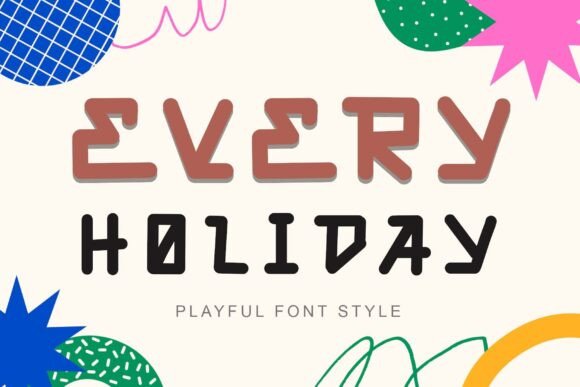
Every Holiday Font: Elevate Your Designs with Elegance and Versatility
In the world of digital design, fonts play a crucial role in conveying the message and aesthetic of a project. Whether you’re creating a festive Easter card, a summer sale banner, or a logo for a vacation brand, the right font can make all the difference. This is where “Every Holiday” comes into play – a unique and elegant display font designed to add a touch of sophistication to your designs. In this article, we’ll delve into the features and benefits of “Every Holiday” and explore how it can elevate your designs for various holidays and occasions.
Key Features of Every Holiday Font
- Uppercase and Lowercase Letters: “Every Holiday” includes both uppercase and lowercase letters, providing you with the flexibility to create visually appealing and balanced designs.
- Numerals and Punctuations: The font comes with a comprehensive set of numerals and punctuations, ensuring that you have all the characters you need to craft detailed and informative designs.
- Multilingual Support: With “Every Holiday,” you can create designs in multiple languages, making it an excellent choice for global brands or projects with an international audience.
Ideal Use Cases for Every Holiday Font
“Every Holiday” is a versatile font that can be used in a variety of design projects. Here are some ideal use cases:
- Easter and Spring Designs: Create festive Easter cards, banners, and posters with a touch of elegance.
- Summer and Vacation Designs: Use “Every Holiday” to craft eye-catching summer sale banners, vacation brochures, and logo designs for travel brands.
- Stickers and Invitations: Add a personal touch to your stickers and invitations with this beautiful font.
- Branding and Logo Design: Establish your brand’s identity with a unique and memorable logo designed using “Every Holiday.”
- Print and Poster Design: Elevate your print designs, such as posters, flyers, and business cards, with the elegance of this font.
Benefits of Using Every Holiday Font
So, why choose “Every Holiday” for your design projects? Here are some benefits:
- Elegance and Sophistication: Add a touch of elegance and sophistication to your designs with this beautiful font.
- Versatility: Use “Every Holiday” for various design projects, from Easter and summer designs to branding and logo design.
- Multilingual Support: Cater to a global audience with the font’s multilingual support.
- Easy to Read: The font’s clear and legible design ensures that your message is conveyed effectively.
Tips and Tricks for Using Every Holiday Font